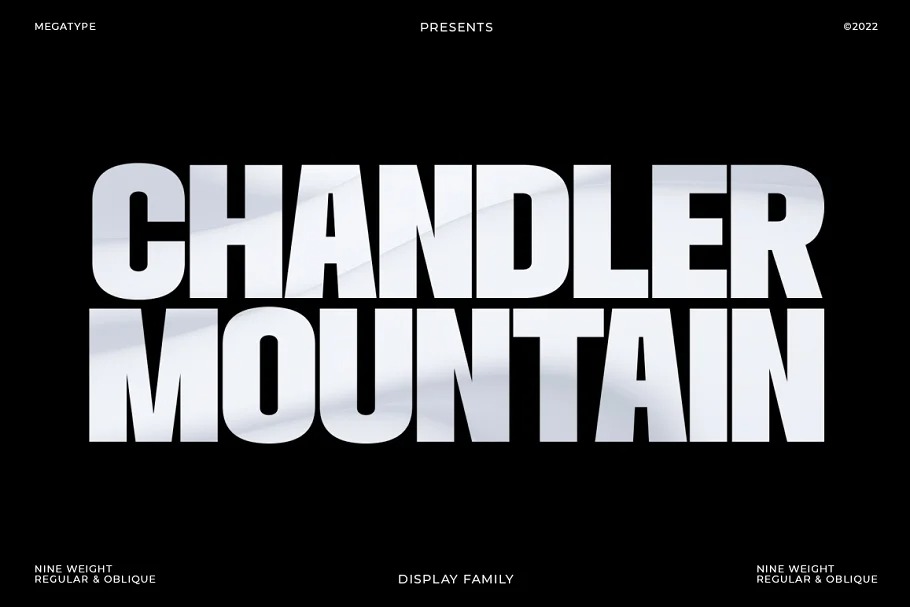
Chandler Mountain Sans Serif Font
This is an unique modern elegant typeface that is simple but strong, defined by sharp edges with a modern touch. It is designed to exude a sense of strength and toughness as well as optimal readability. Chandler Mountain Font would perfect for branding, logos, headlines, Captions. or simply as a stylish text overlay to any background image.